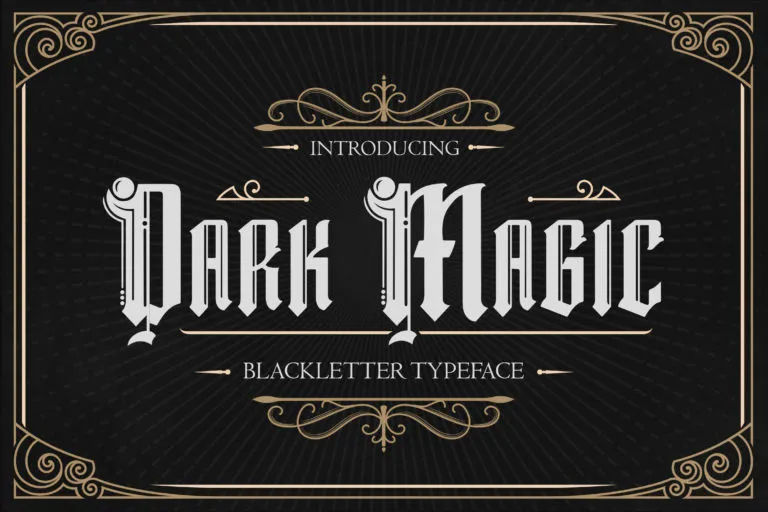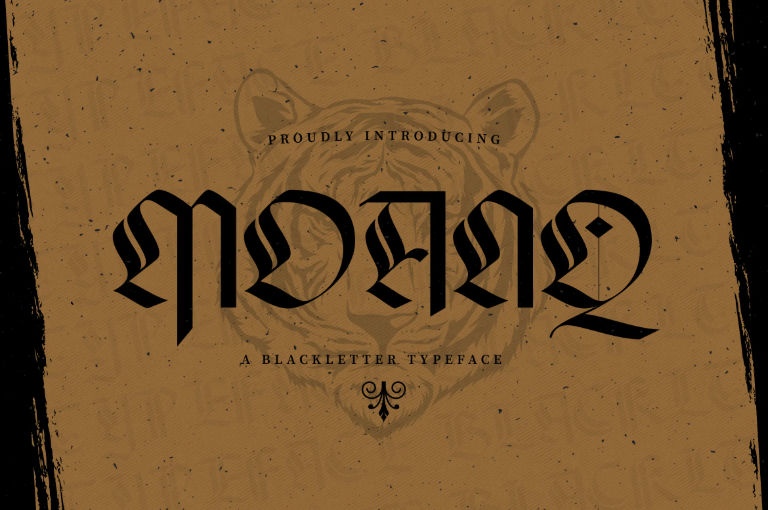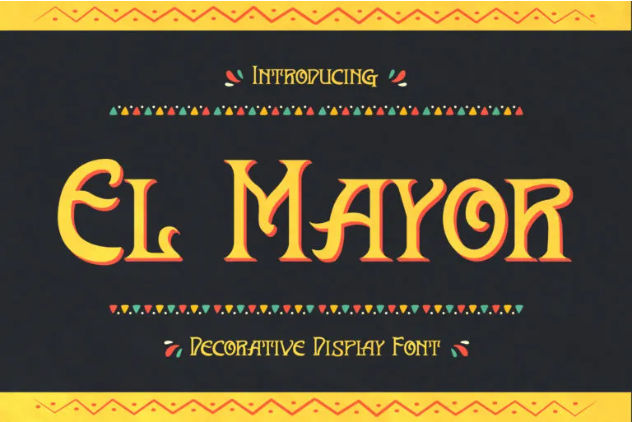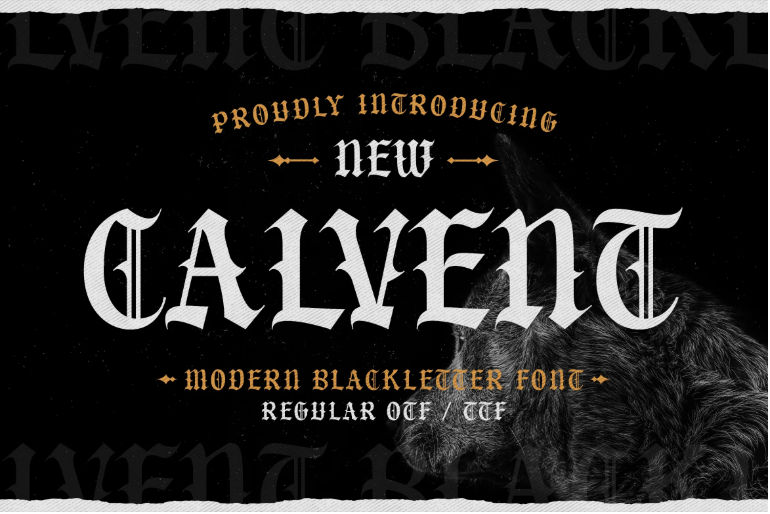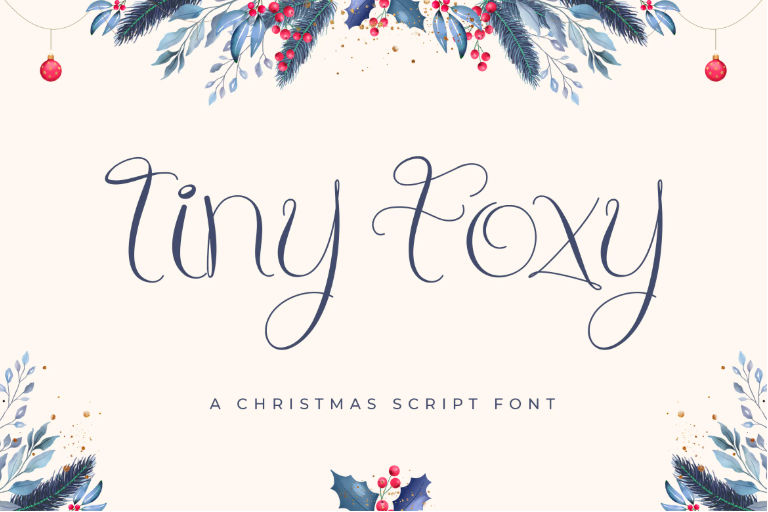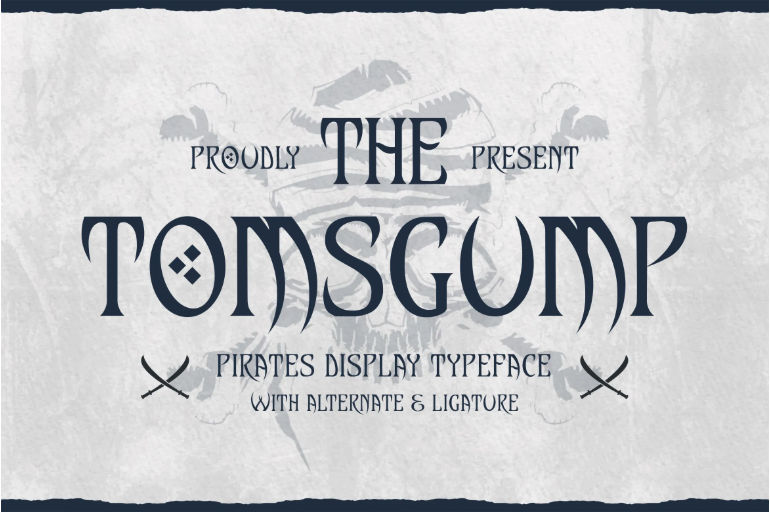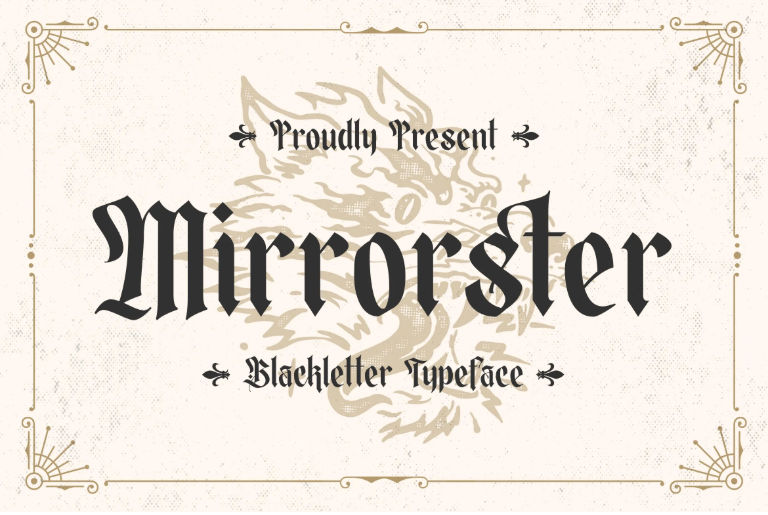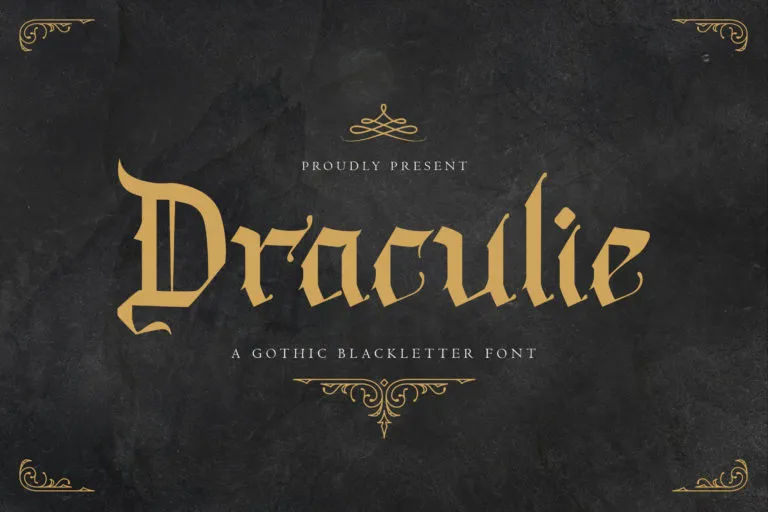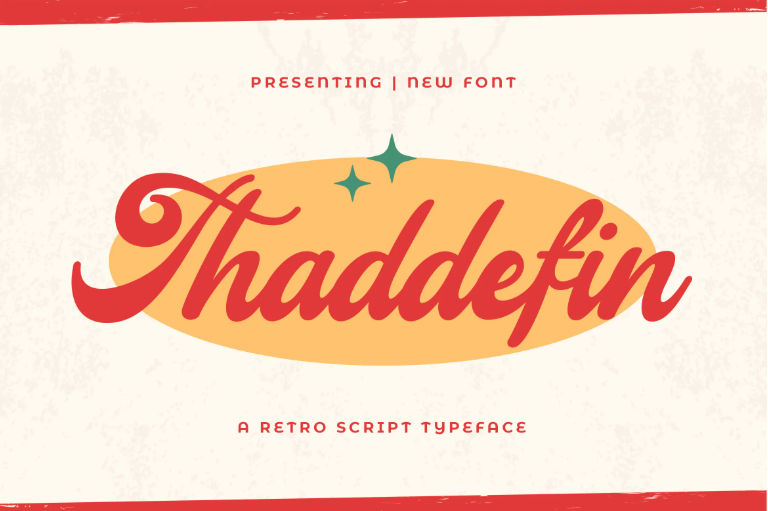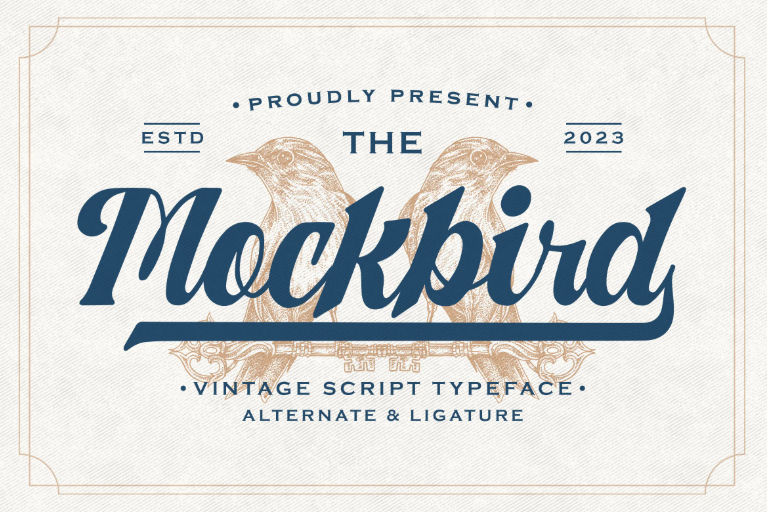
20+ Stylish Tattoo Fonts for Women You Haven’t Seen Before
One way to artistically express yourself is through tattoos, whether it’s a meaningful quote, a loved one’s name, or a single powerful word, the right font can better deliver the message. Now, we’ll explore the vast tattoo fonts for women to inspire your next piece.
Stylish Tattoo Fonts for Women
The first thing you’ll imagine about tattoos is the blackletter typeface, but, it’s not limited to that. We also include some of the prettiest tattoo fonts for girly tattoos, catering to hellish, feminine, and artsy tattoo font selections. Let’s check them out!
1. Gumithir
Gumithir’s style derived from the traditional blackletter typeface. But this one adds a more intricate flair, especially on the uppercase letters.
2. Calvent
Blackletter like Calvent are inspired by the Textura style. This font brings back the iconic vertical thin lines in its uppercase letters but with much more modern cuts.
3. Mirrorster
When creating a nostalgic and medieval vibe in your tattoo, use Mirrorster. This font represents the intricate ornamental of blackletter with denser letters for longer words.
4. Thundra
The flowy Thundra is based on the Bastarda style. This style has much more exaggerated curves rather than rigid strokes. Thundra adds its own ornamentation on top of the already sophisticated font style.
5. Draculie
Draculie Gothic font is inspired by calligraphic styles. The font has a darker, murkier, and more mysterious feel with letter forms that seem facing downward.
6. Thaddefin
Stepping off from the dark, we have Thaddefin, and this script font highlights the retro typeface. The font is particularly stylish with its uppercase letters.
7. Mockbird
Mockbird font can highlight the masculine and classic charm. This font has pronounced elegant curves and vintage flair while adding boldness to the script style.
8. Roadsley
Combining the classic and modern blackletter, we have Roadsley. This font still retains the iconic vertical stroke and thorny aesthetic but uses a more legible style and is almost sporty.
9. Might Side
If you want a denser Gothic typeface, grab Might Side. This font aims for fewer ornaments and sleeker aesthetics. As a tattoo, you can also make it denser to create a barcode-like illusion.
10. Champeon
Aside from the medieval and Celtic design, Champeon also exudes some queen’s energy. While using Gothic strokes, this font carefully uses “pretty proportion” to the letters.
11. Dark Magic
If you aim for a modern blackletter font with distinct ornaments, use Dark Magic, one of the Gothic tattoo fonts for women that features a crystal in the typeface.
12. Moanq
Among our rich blackletter collection, Moanq has the cleanest appearance. The font aims for great legibility while acknowledging the pretty aspect of the style.
13. Dathsom
Dathsom has the balance between thick and thin strokes. Using this font as your tattoo, you can highlight a beautiful quote with an equally beautiful typeface.
14. Saybrox
Saybrox is a great option for your first tattoo design. This font utilizes thin lines beautifully to compensate people who have low pain tolerance.
15. Wynthear
For a script font, Wynthear also adds a touch of nature vibes. The font has cute and surprising ornamentals on its letters, a feature for those who pay attention to details.
16. Lubang Hitam
If your whole aesthetic is about rough and grunge designs, Lubang Hitam can complete it. This bold script font features some dirty textures in the details.
17. El Mayor
El Mayor is a decorative font with unique glyphs. If you want to make short but impactful tattoos, each letter can get its own attention when you use this font.
18. Roverse
When you’re looking for beautiful tattoo font ideas for women, you go to Roverse. This font has the familiar serif style with tall proportions and a vintage look.
19. Revaz
A font idea for you who feel you’re the center of the universe, Revaz. This font contrasts the commonly tall and dense fonts with its wide and circular letterforms, perfect for an eye-catching design.
20. Tiny Foxy
A Christmas-themed script font Tiny Foxy exceeds its initial purpose. This font is too beautiful to be just on a present, you can also decorate your skin with its delicate typeface.